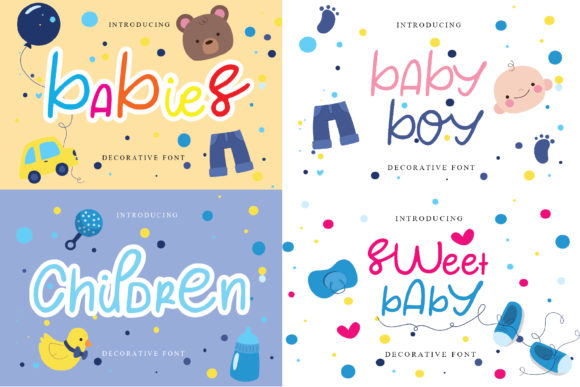
Prepare yourself to be enchanted by the whimsical charm of the Babies Font, a captivating display font that will add an irresistible touch of playfulness and warmth to your creations.
Crafted with meticulous care by the renowned font foundry, goodigital, Babies Font exudes a delightful personality that will bring a smile to your face and a spark of creativity to your imagination.
Whether you're looking to add a touch of whimsy to your comic book designs, create enchanting invitations, or simply add a splash of joy to your everyday projects, Babies Font is the perfect choice.
With its playful curves and charming strokes, Babies Font will effortlessly transform your creations into eye-catching masterpieces that will leave a lasting impression.
Imagine the vibrant pages of a comic book, bursting with life and laughter, as the Babies Font dances across the panels, capturing the very essence of childhood wonder and adventure.
Picture the delight on your loved ones' faces as they receive invitations adorned with the adorable Babies Font, promising a celebration filled with joy and memories to cherish.
Visualize the smiles that will spread across children's faces as they embark on imaginative journeys with books and stories brought to life by the enchanting Babies Font.
The Babies Font is more than just a font; it's an invitation to let your creativity soar, to embrace the joy of playfulness, and to create designs that will make the world a happier, more enchanting place.